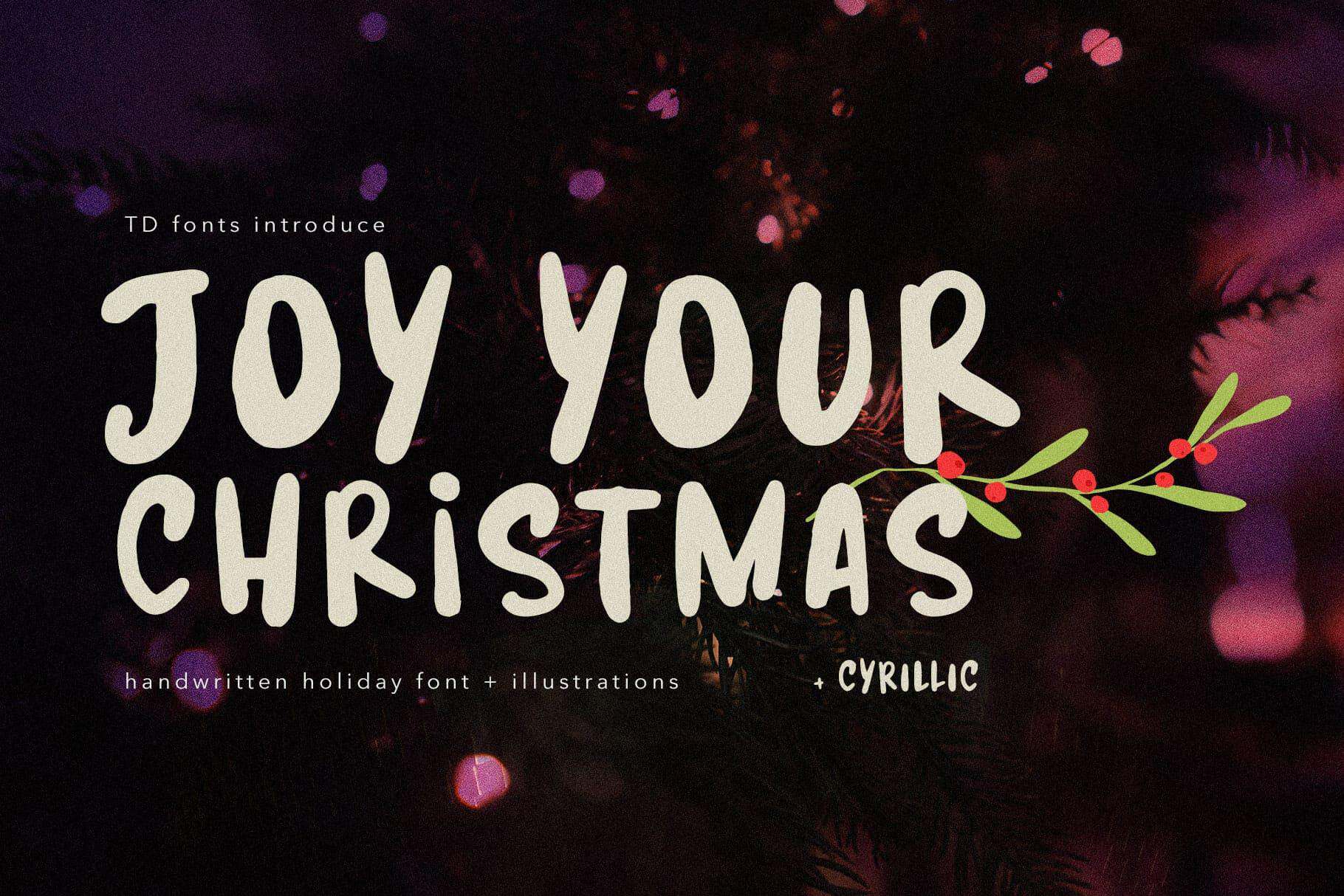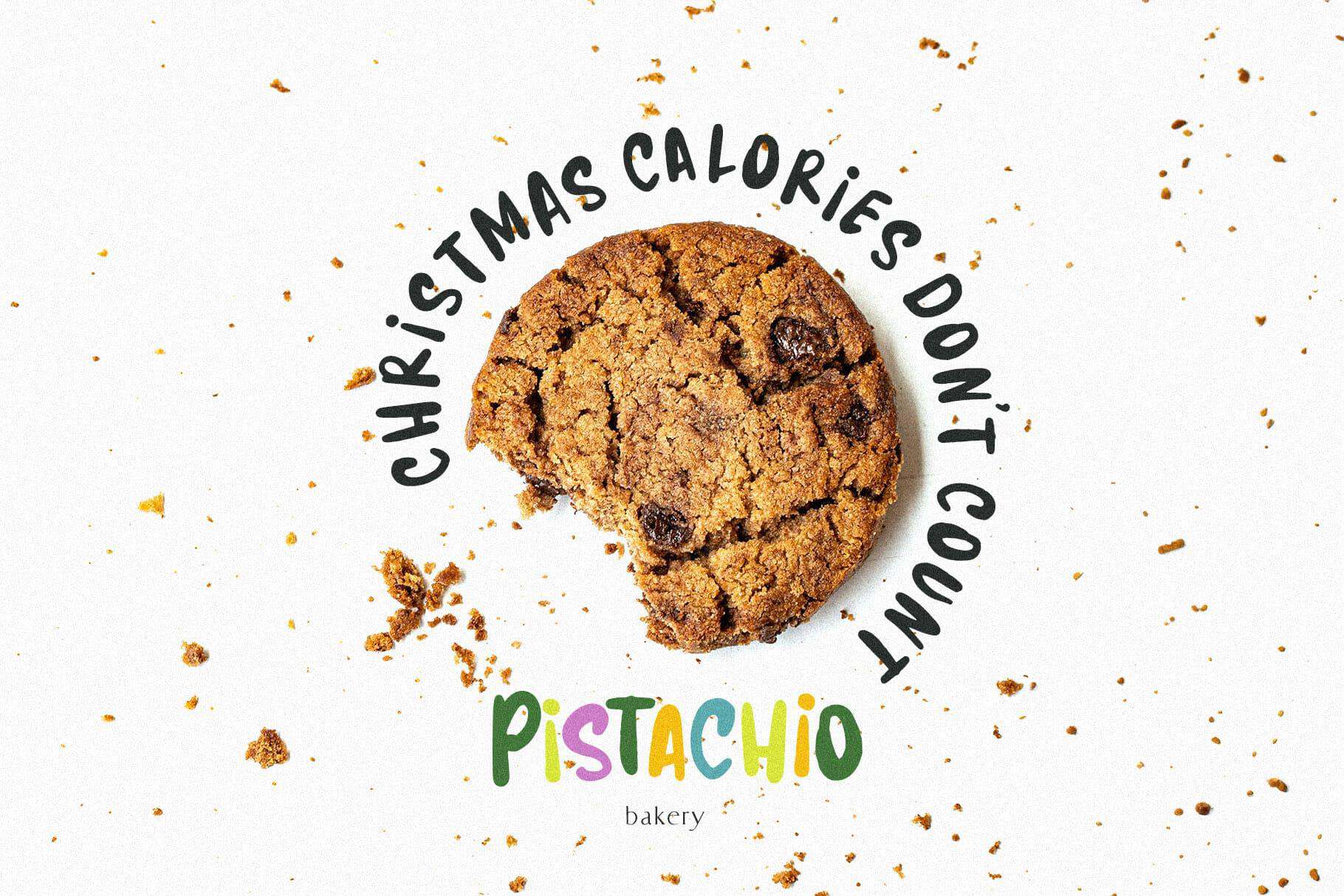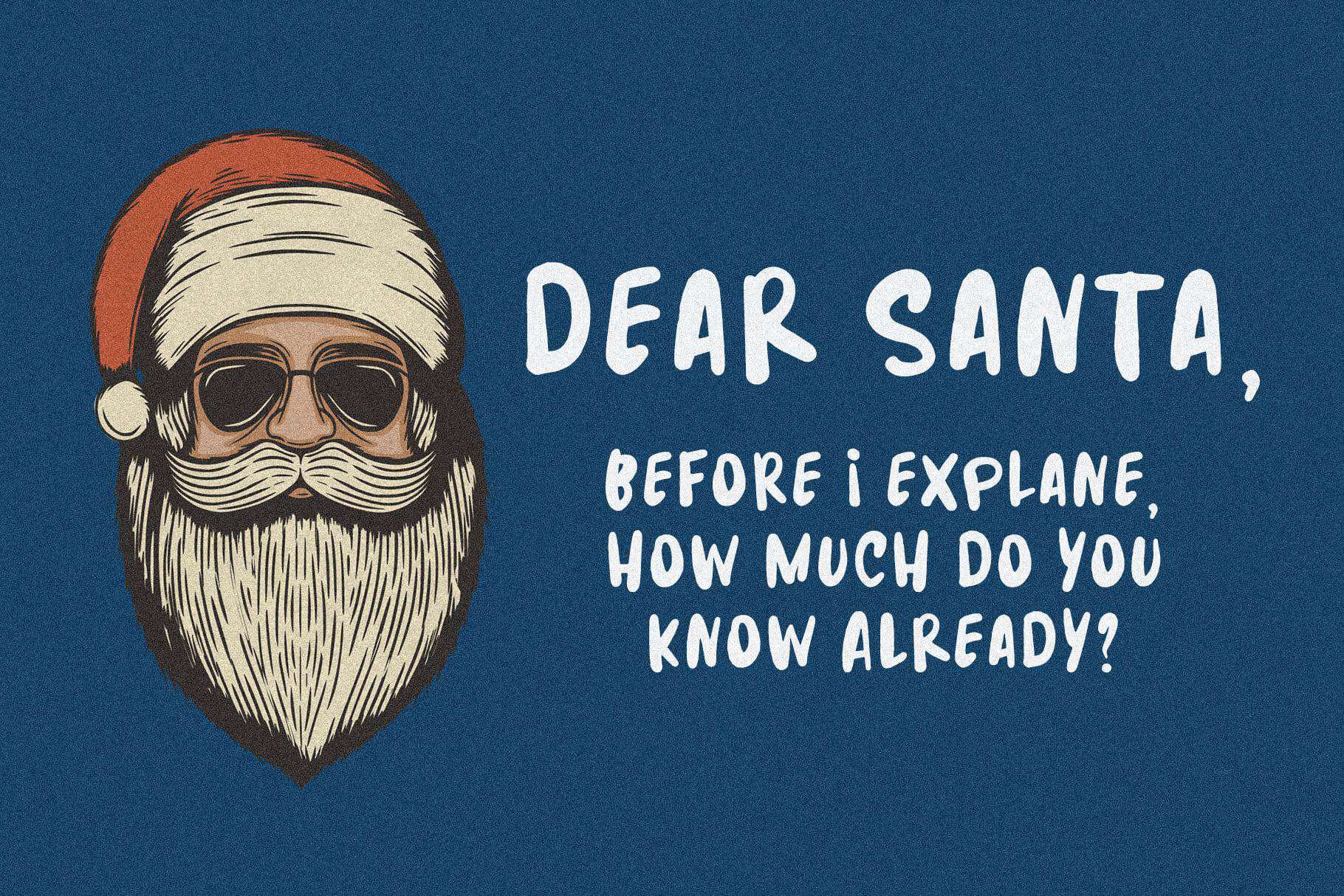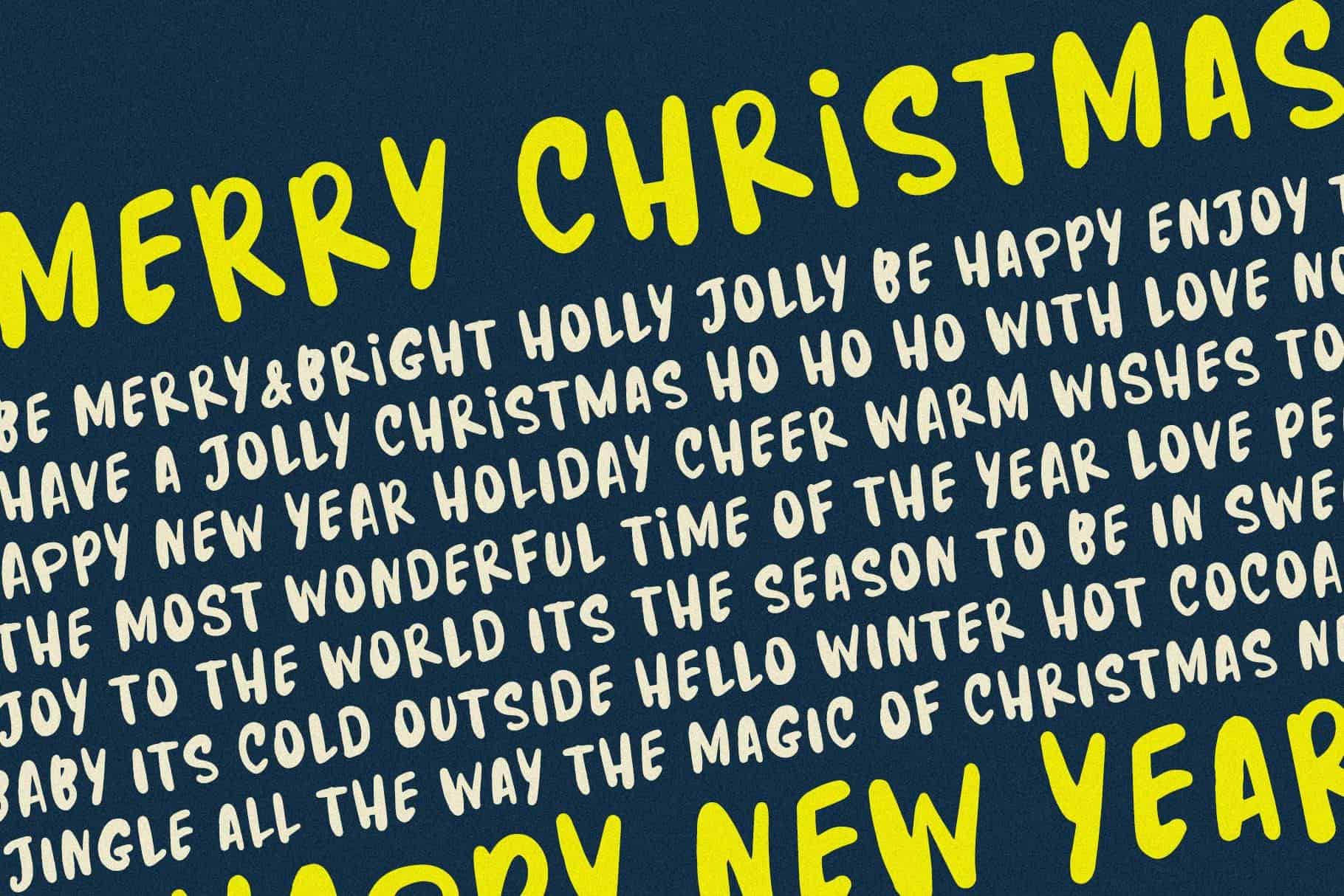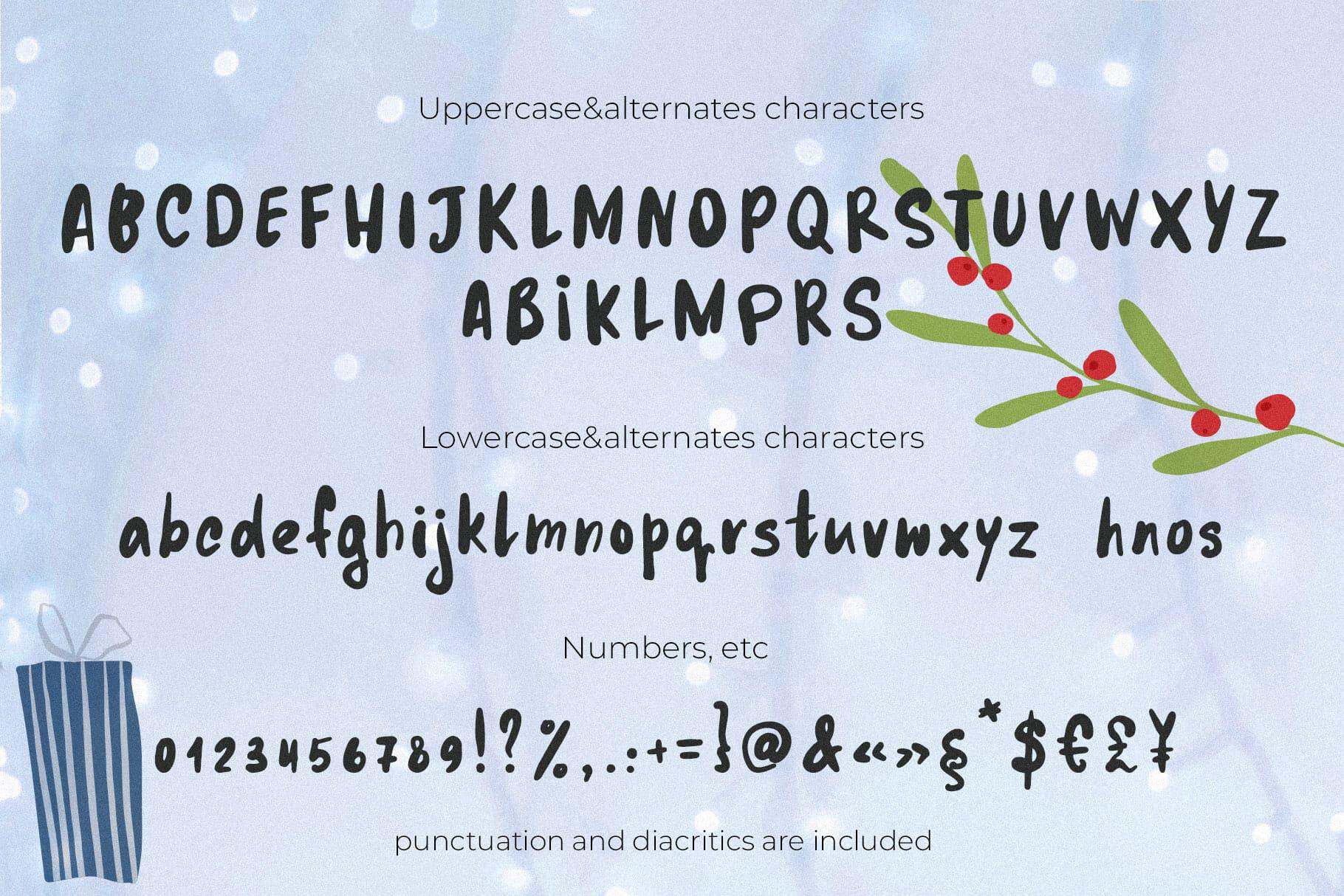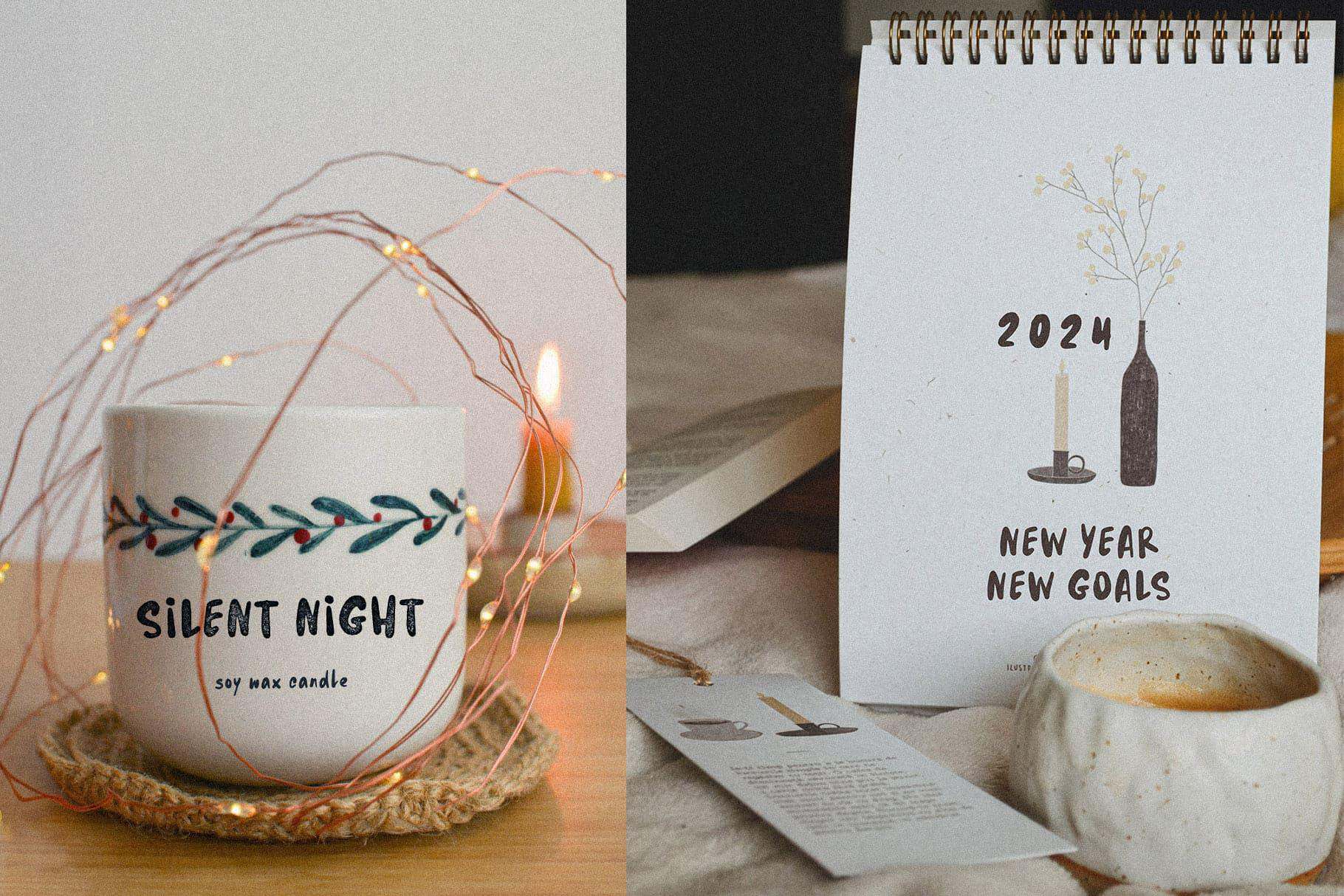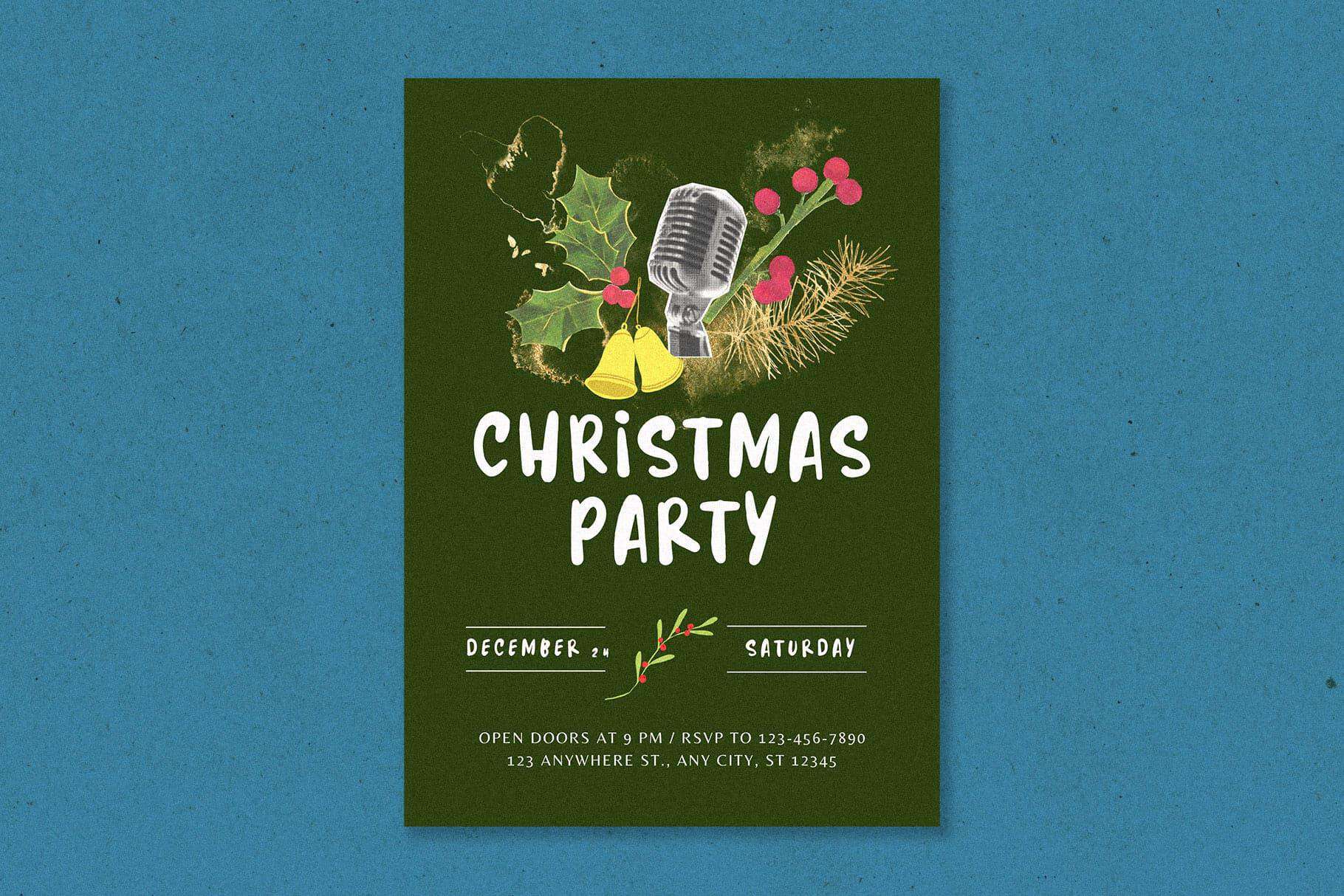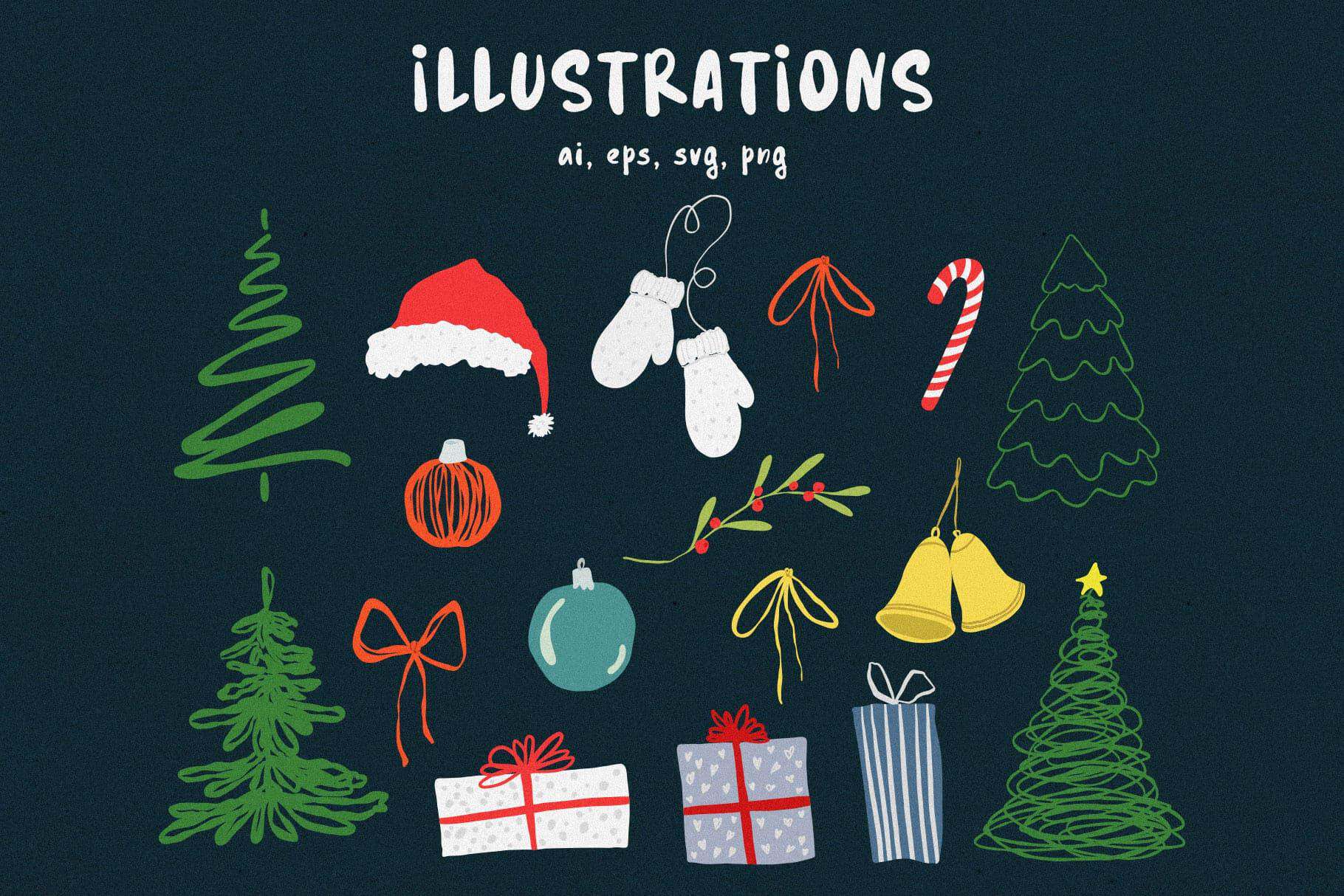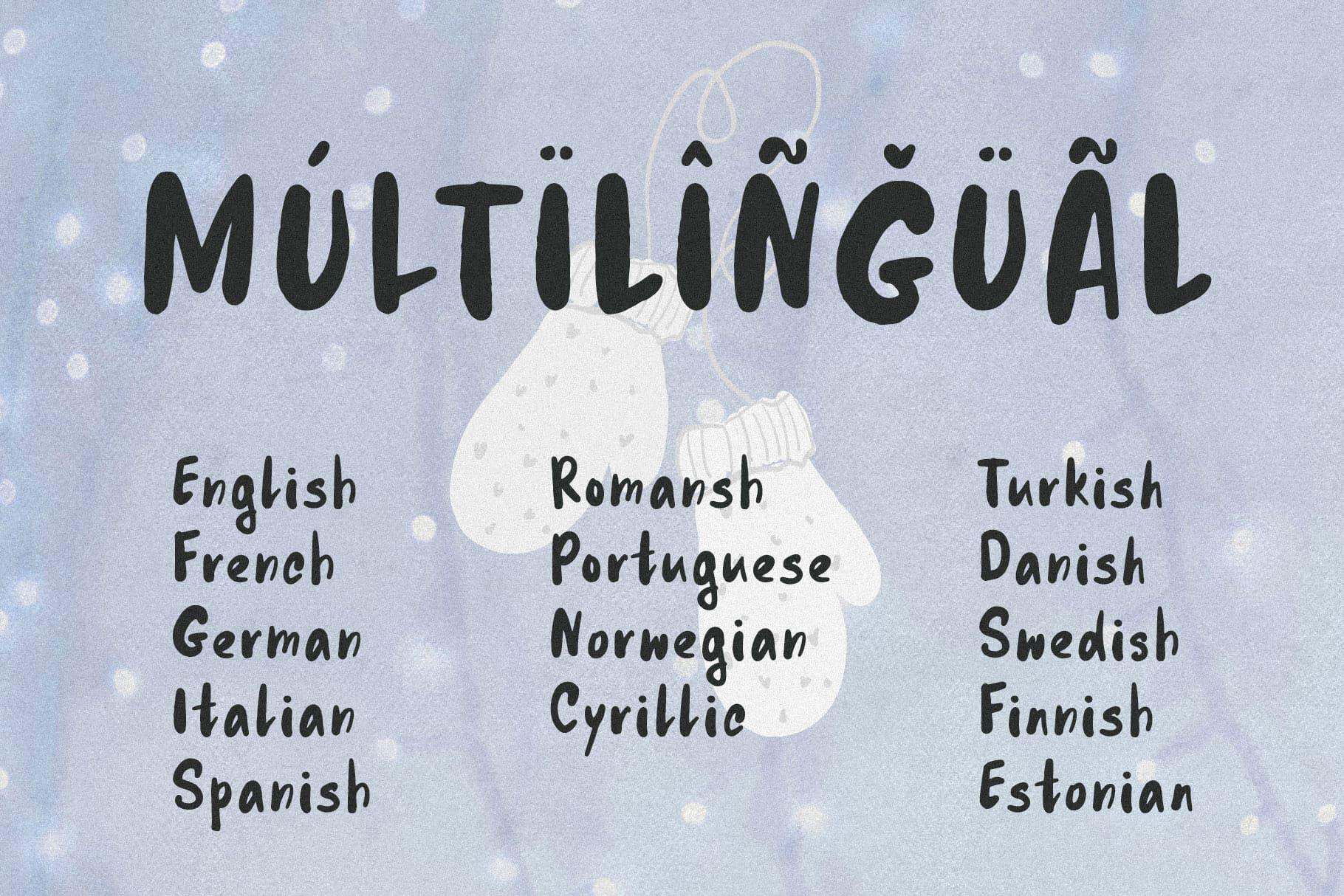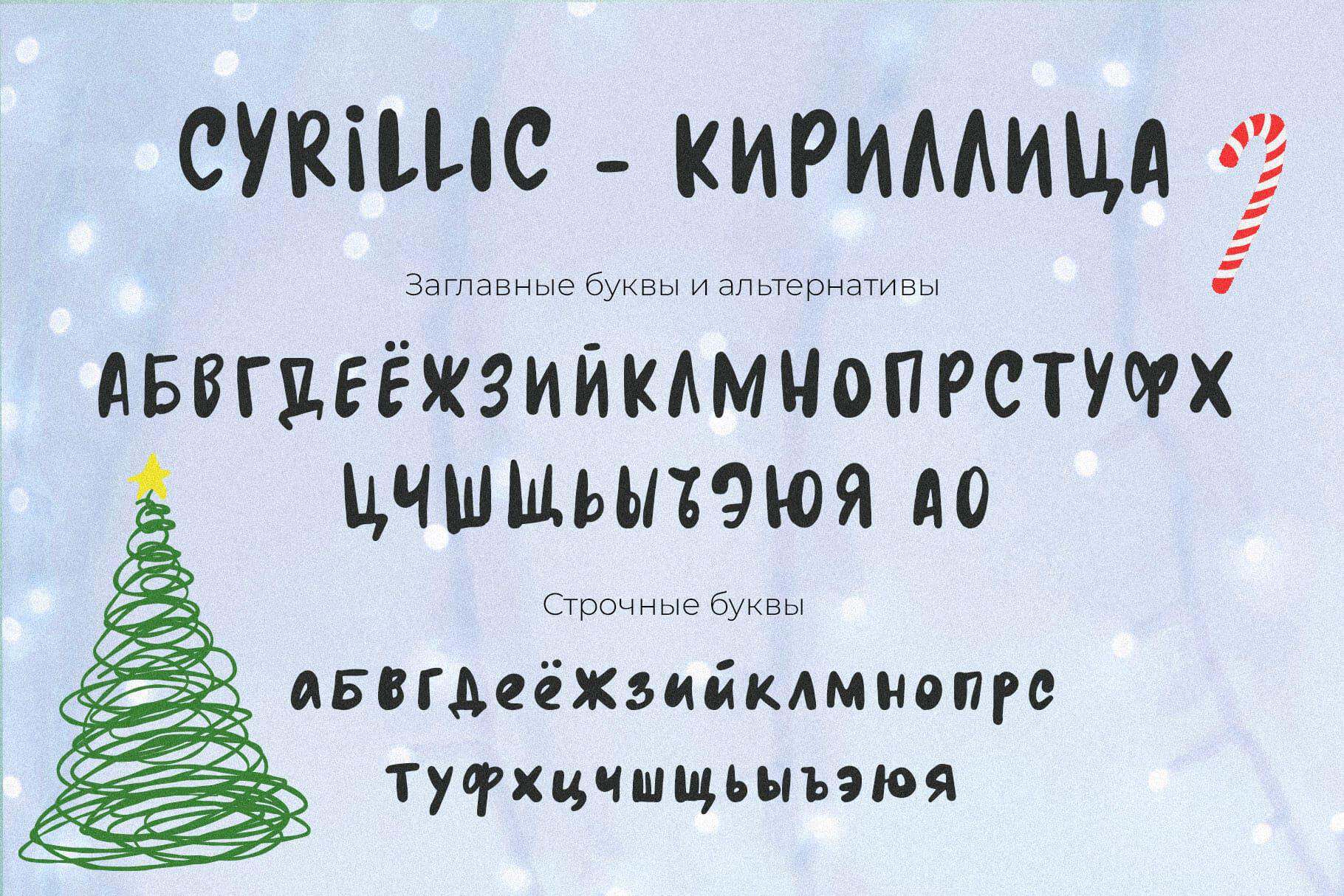
Joy your Christmas handwriting font
Joy Your Christmas is a very cozy handwritten holiday typeface inspired by my childhood memories of my favorite holiday of the year
Joy Your Christmas is a very cozy handwritten holiday typeface inspired by my childhood memories of my favorite holiday of the year. The font has a small grunge texture and a slightly jumping baseline — as if we were signing postcards and gifts for our loved ones very quickly with a marker. The font is accent, ideal for headlines, for the festive design of websites and social networks, branding, various inscriptions and posters, advertising, product packaging, labels, photos, invitations and any other design project.
In the set you will also find hand-drawn vector illustrations of Christmas trees and other symbols of winter holidays – they will be the perfect companion to your design.
Don’t miss the moment and quickly add Joy Your Christmas to your font collection — with it you can easily add retro vibe and a whiff of bright children’s emotions to your designs.
Joy your Christmas has extensive language support, it includes English, French, German, Italian, Spanish, Portuguese, Danish, Norwegian, Swedish, Finnish, Estonian, Romansh, Turkish, Cyrillic. Need to know if your language is supported? Type any words in the text box below and see if all characters you need are there.